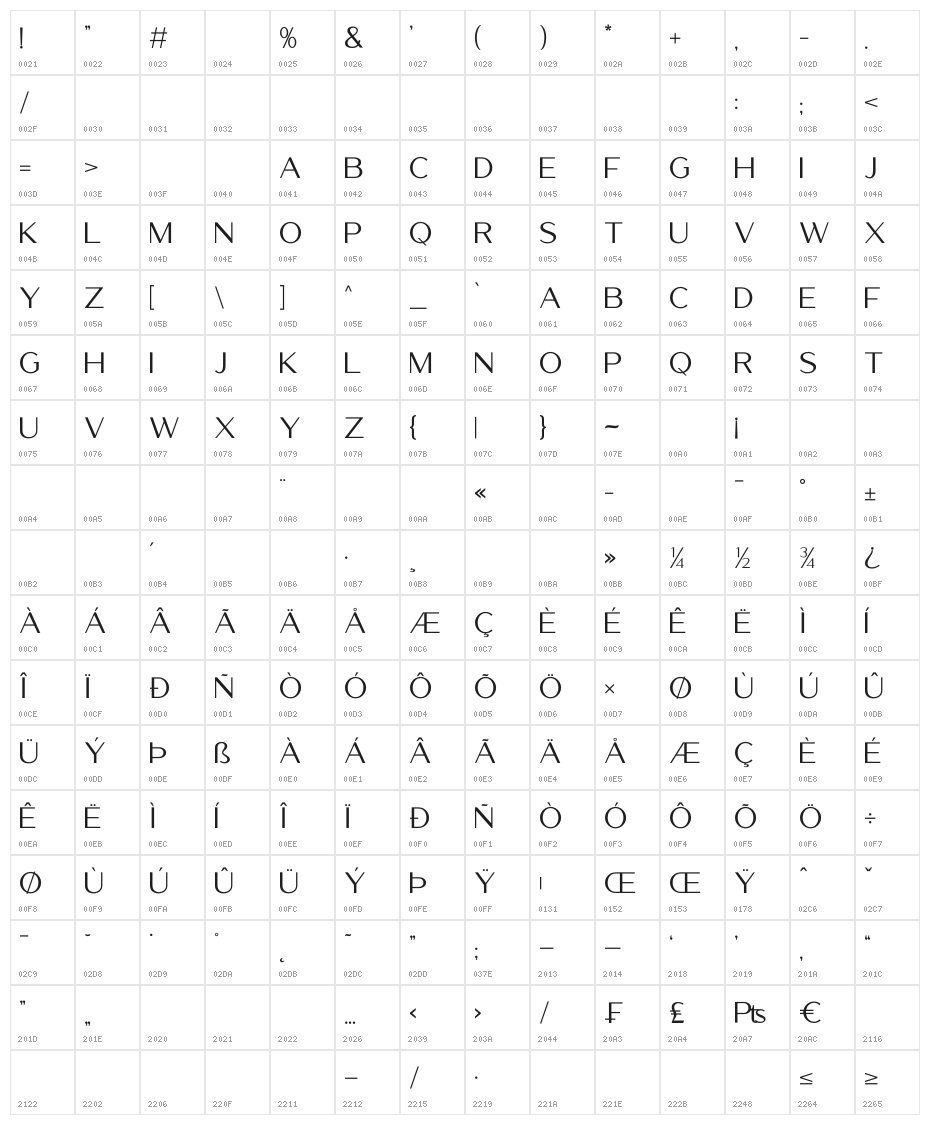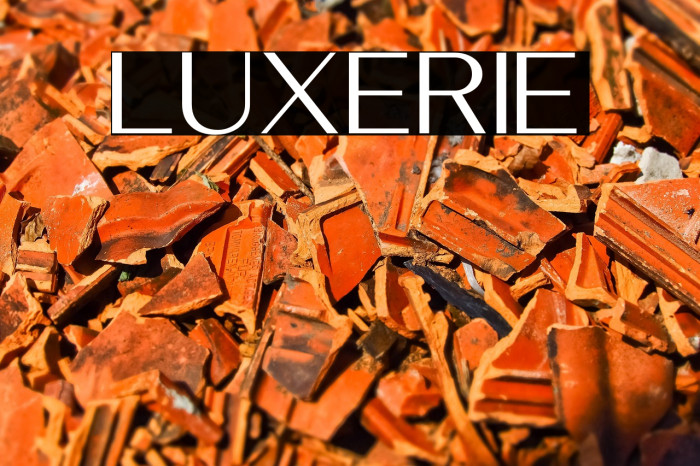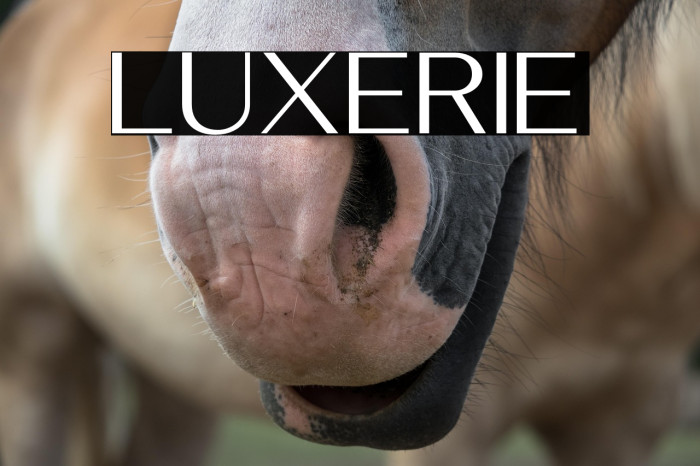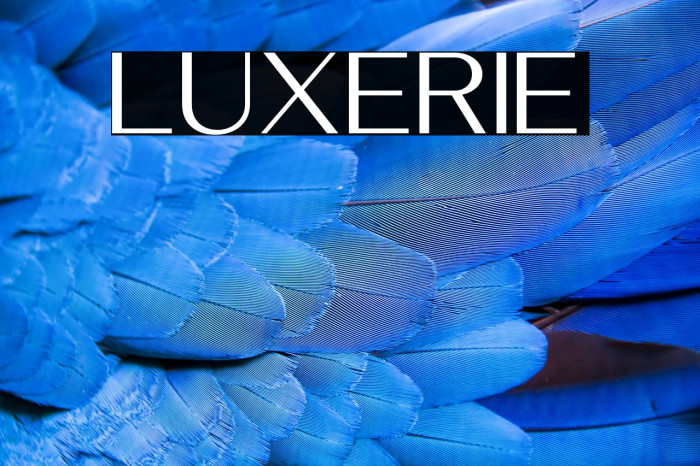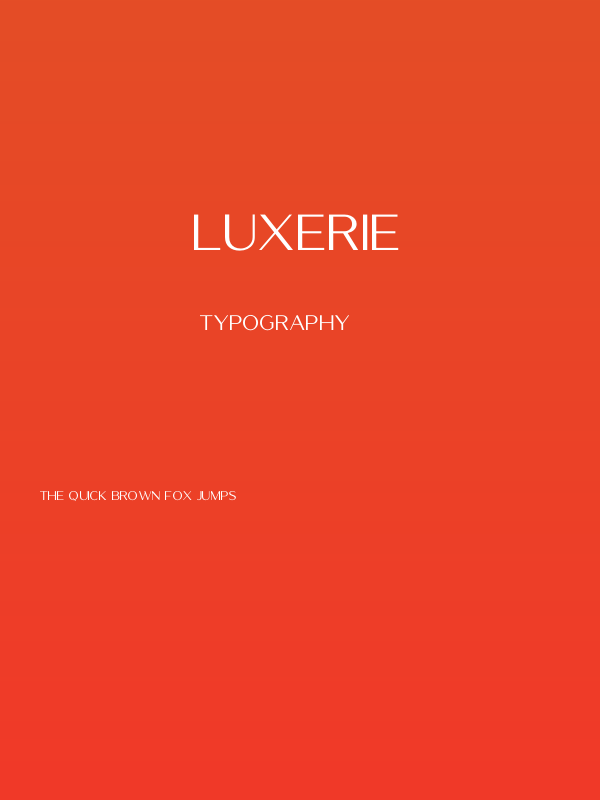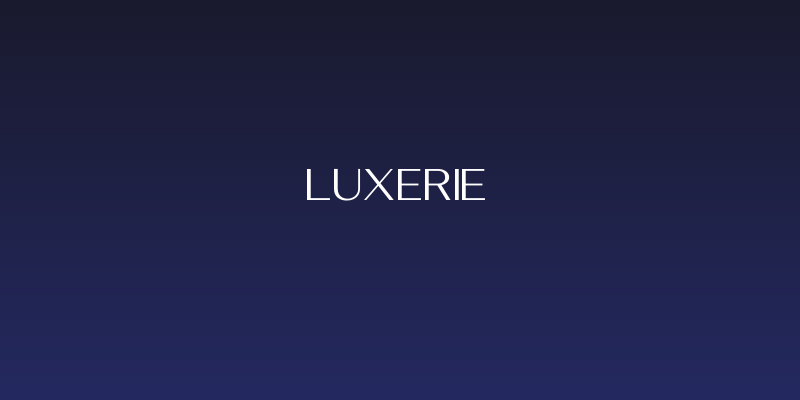
Luxerie Font
Luxerie Description
This font features a clean and modern sans-serif design, characterized by its sleek and minimalist appearance. The uppercase letters are uniform in height, with straight lines and smooth curves that give it a contemporary feel. The lowercase letters maintain the same modern aesthetic, with a consistent stroke width that enhances readability. The numerals are clear and straightforward, matching the overall style of the alphabet. Special characters are designed with the same attention to detail, ensuring a cohesive look across all glyphs. This font is versatile, suitable for a range of design applications where a modern and professional appearance is desired.